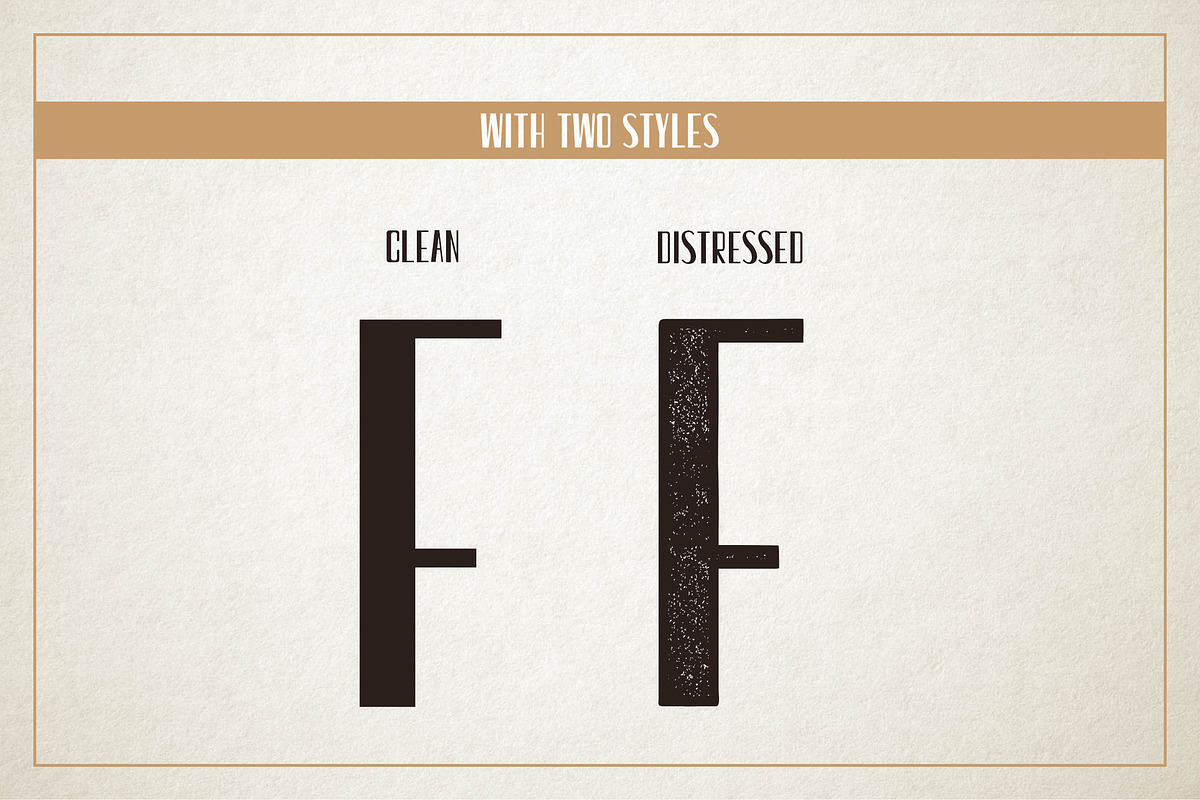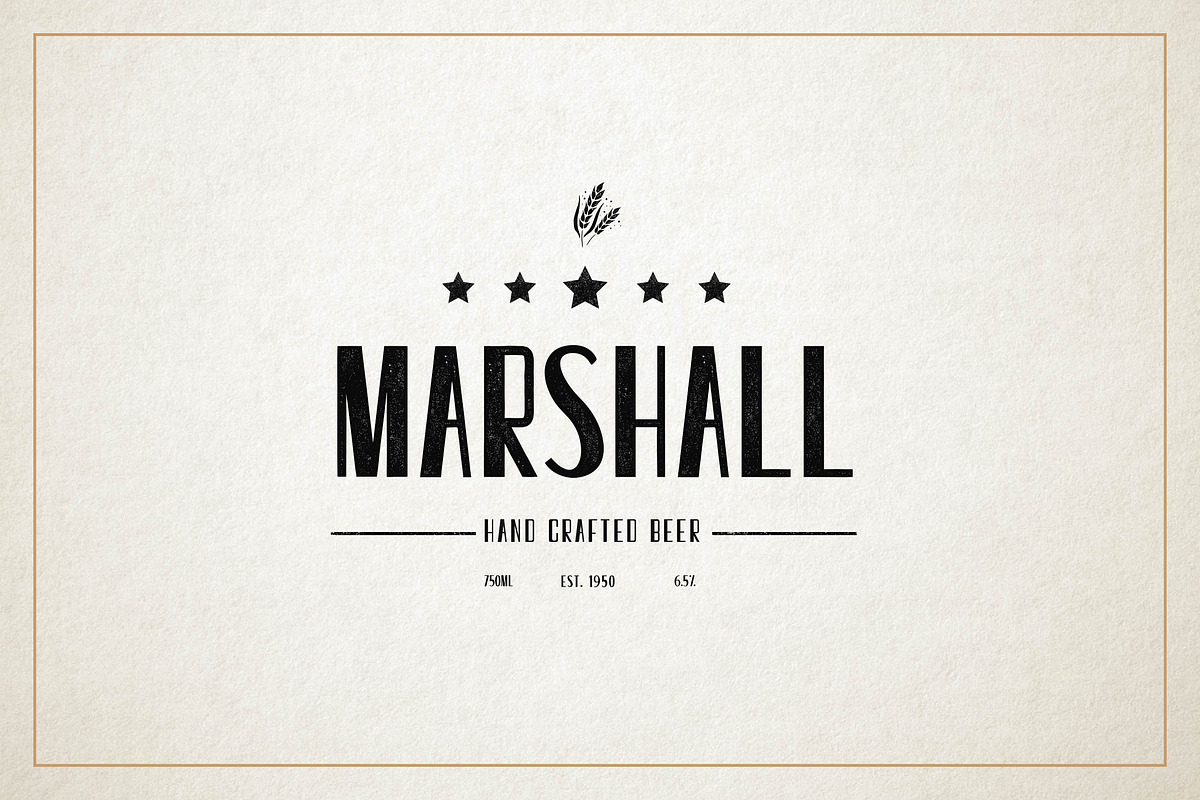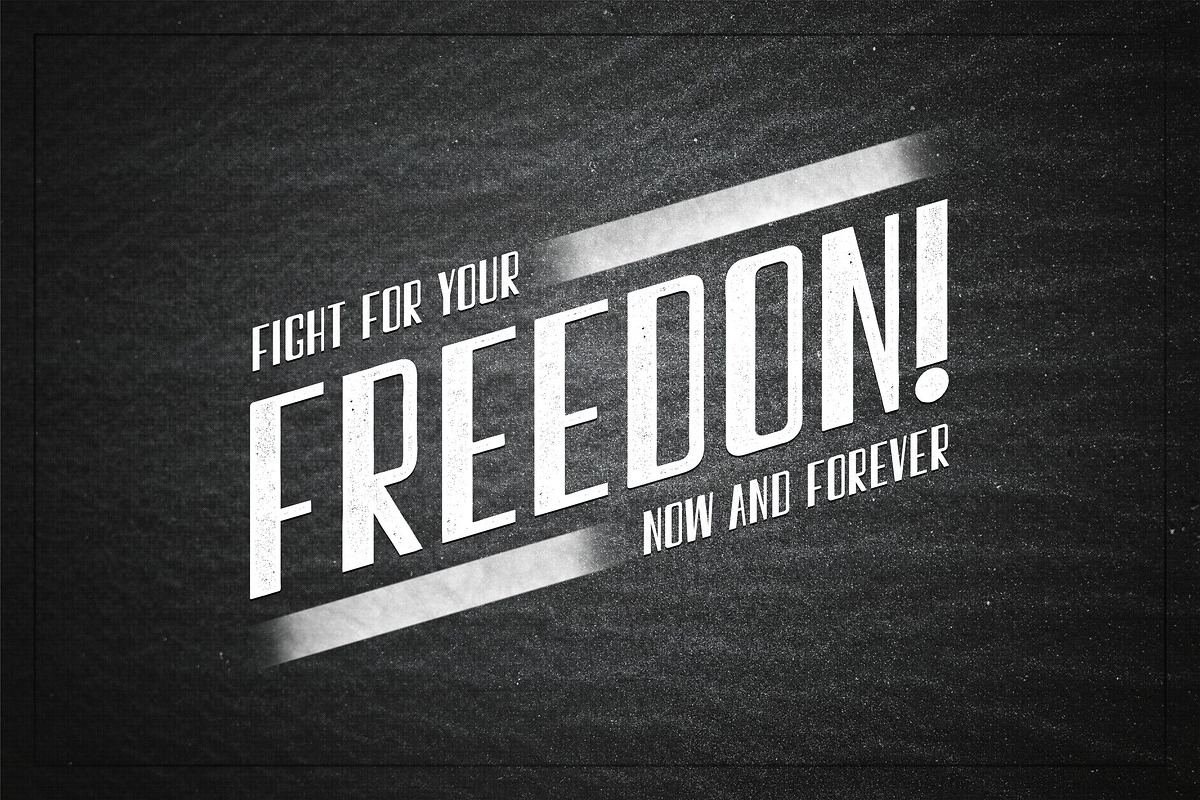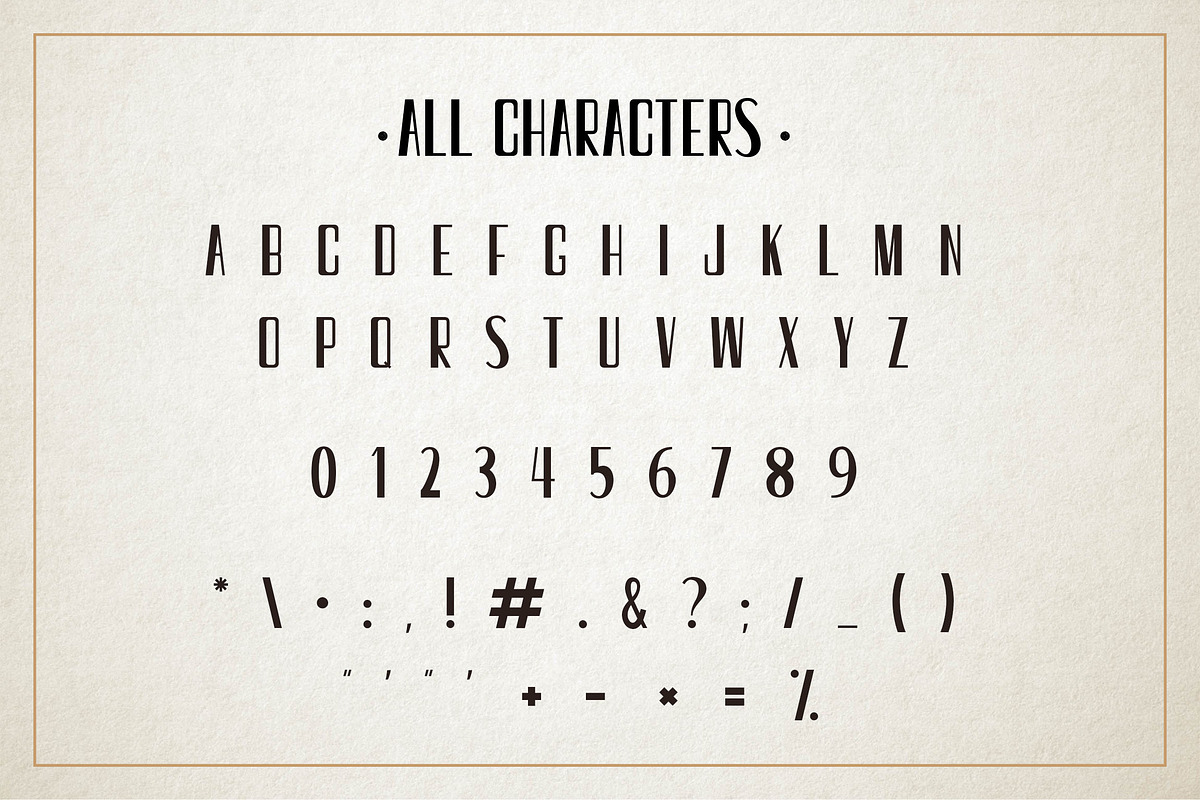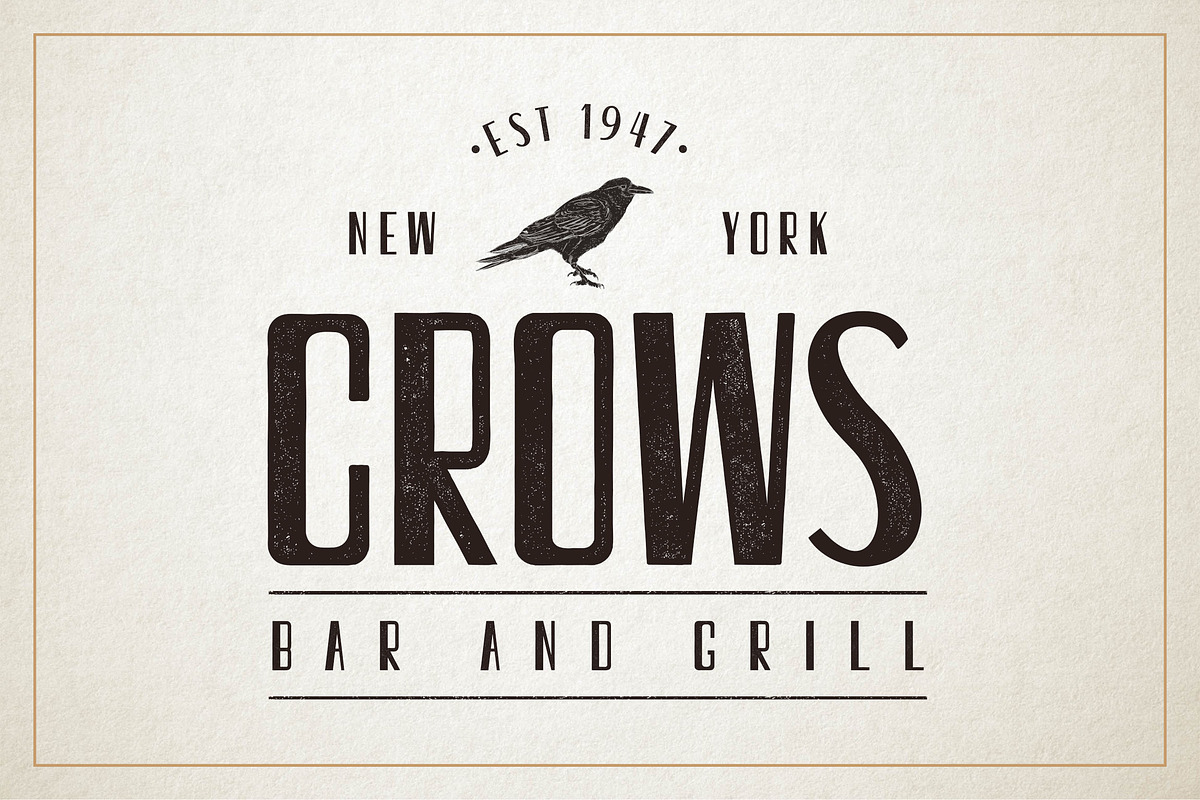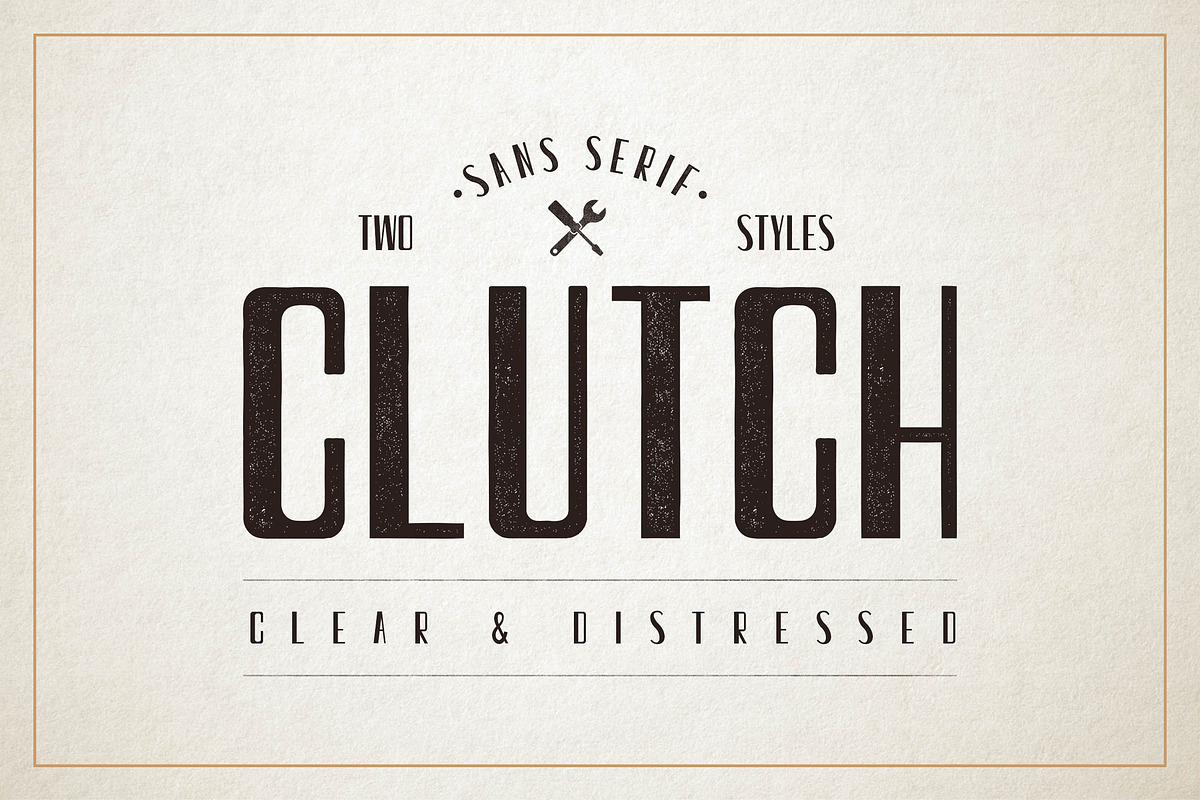
Clutch-Sans Serif Retro Font
Clutch-Sans Serif Retro Font by CorgiAstronaut is a font selected for branding, posters, packaging, typography.
- It comes with two styles, for more flexibility it comes with clean and distressed versions.
Why Clutch-Sans Serif Retro Font is worth a look
Clutch-Sans Serif Retro Font by CorgiAstronaut fits naturally into Branding, posters, packaging, typography.